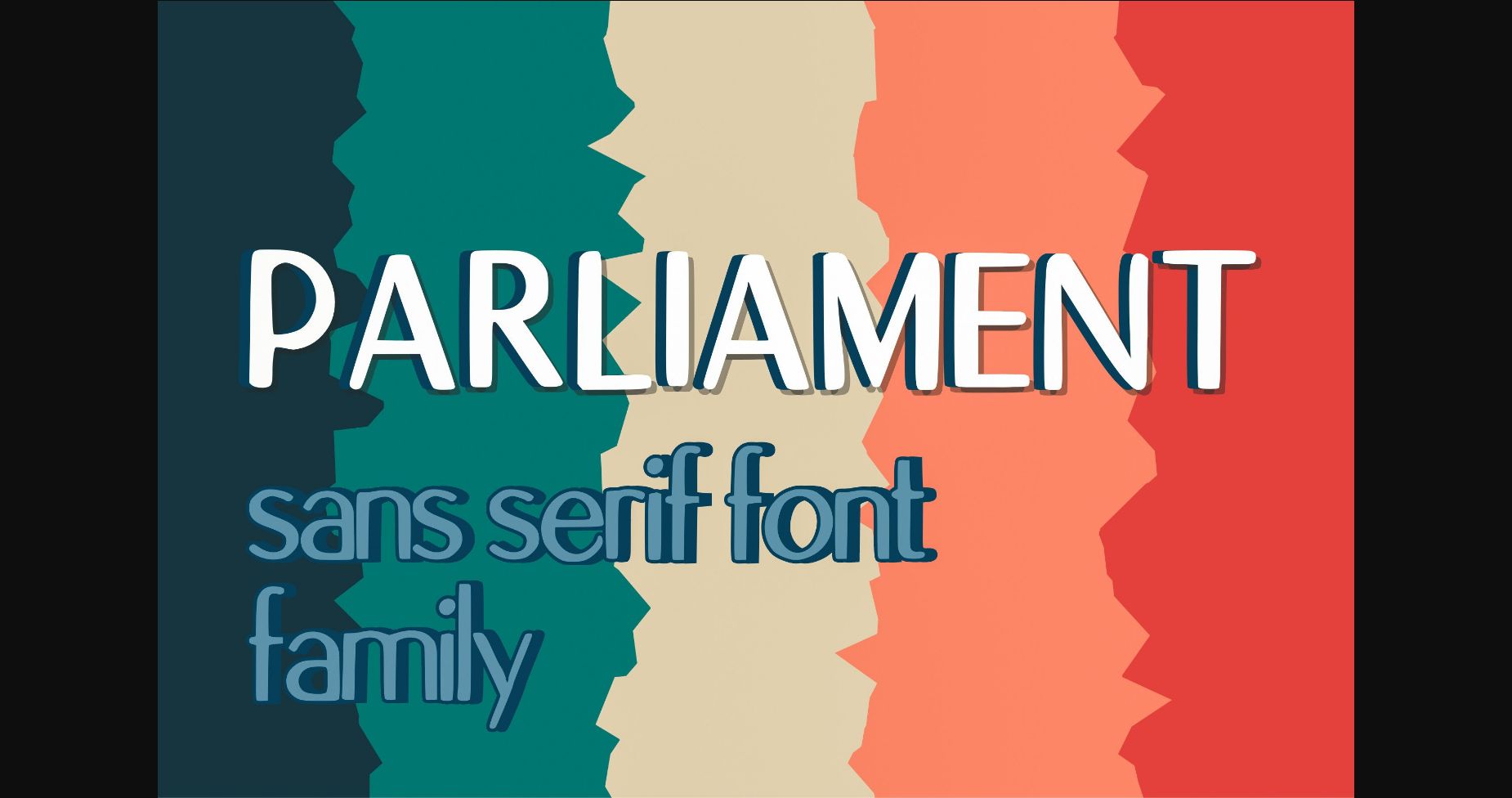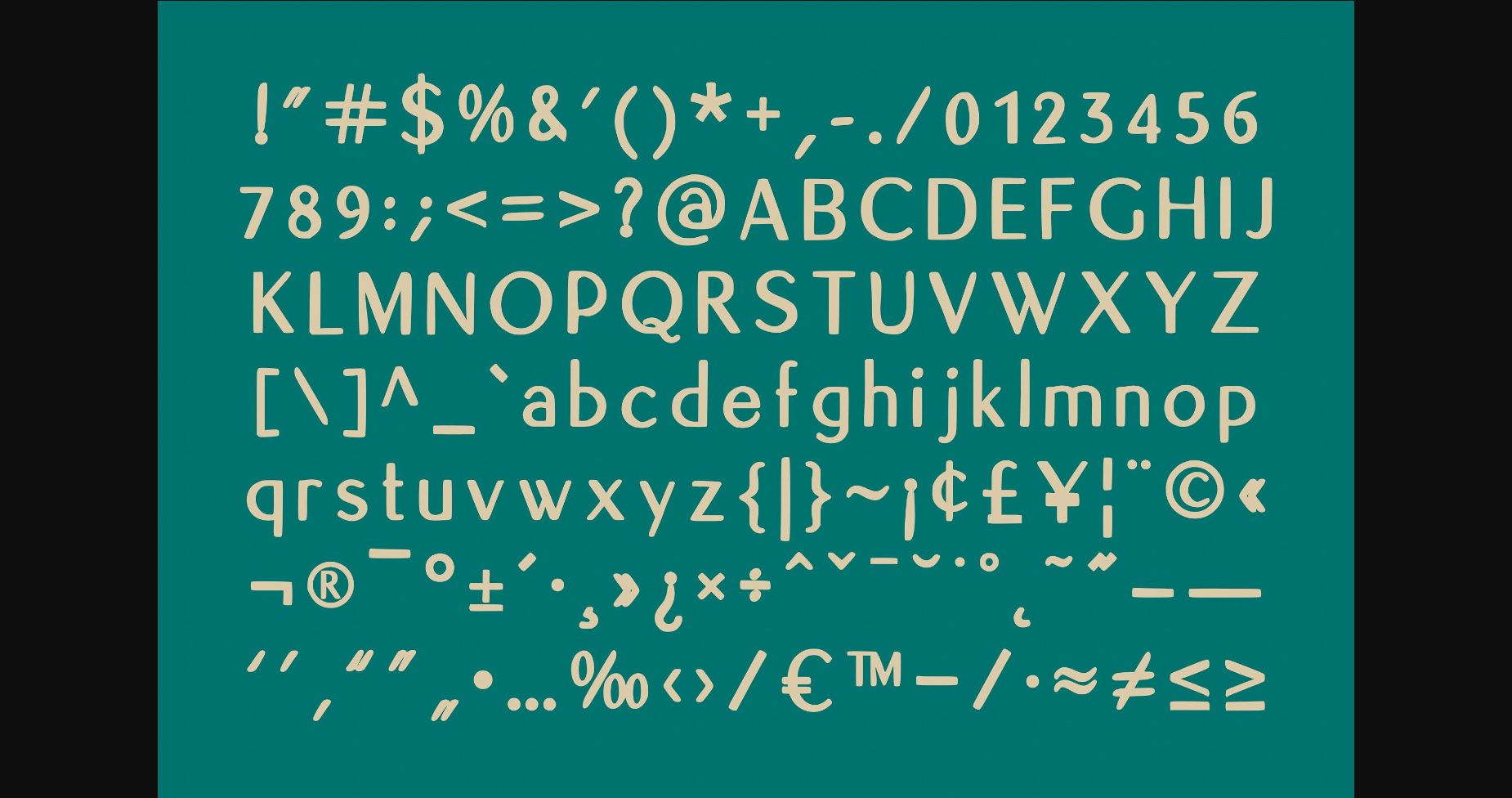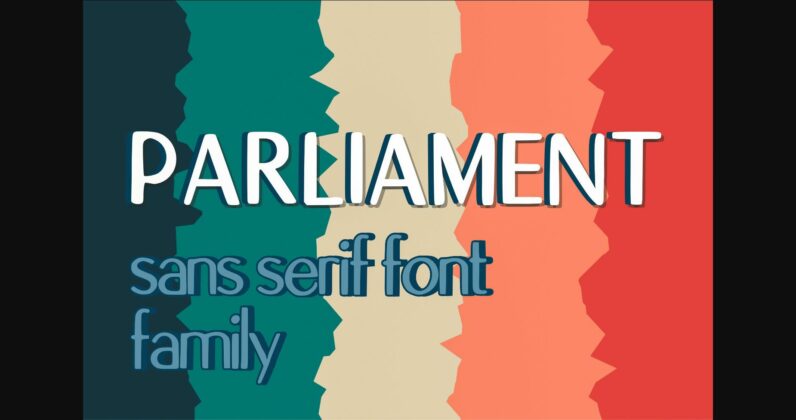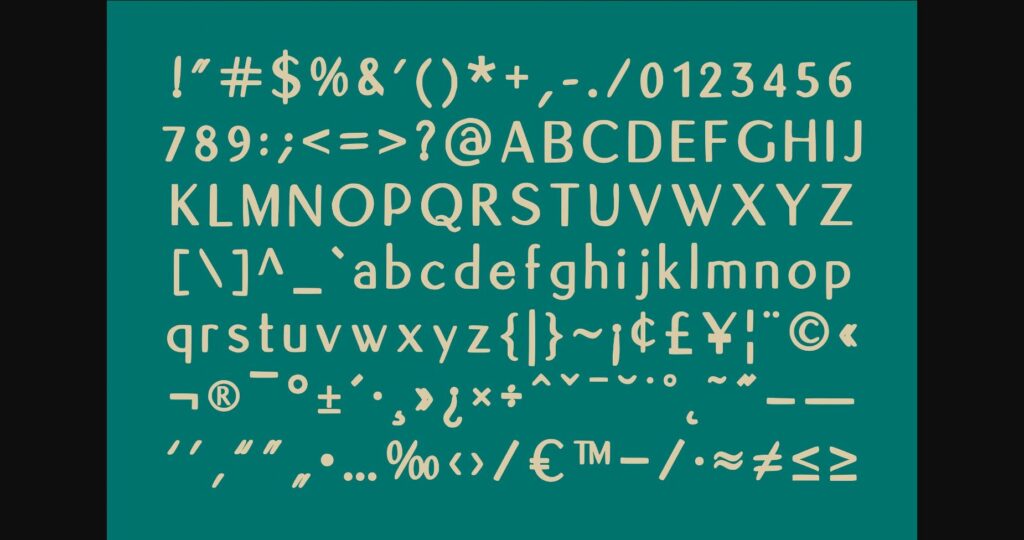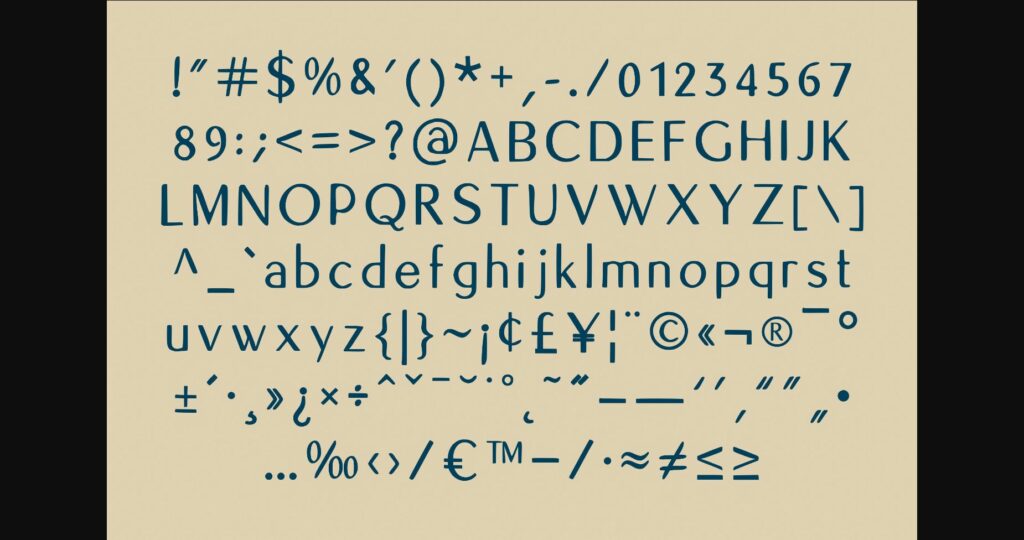
Parliament Font
About Parliament Font
Parliament is a neat and fresh sans serif font. This minimalist and clean vibe can easily apply to your favorite designs such as book covers, magazines, social media posts, invitations, and so much more!